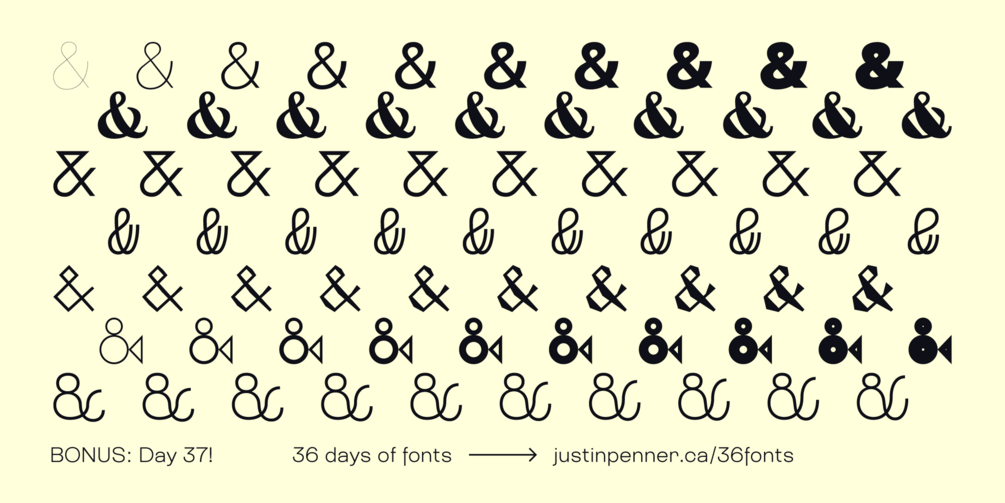
36 Days of Fonts: Day 37 (bonus!)
Amp
As everyone who’s participated in 36 Days of Type knows, there’s a bonus day 37, dedicated to a distinguished character that often makes an appearance together with the Latin alphabet: the not-so-humble ampersand.
Today’s font is a variable font containing 7 unique ampersands that morph and transform themselves across a single axis. Enjoy!